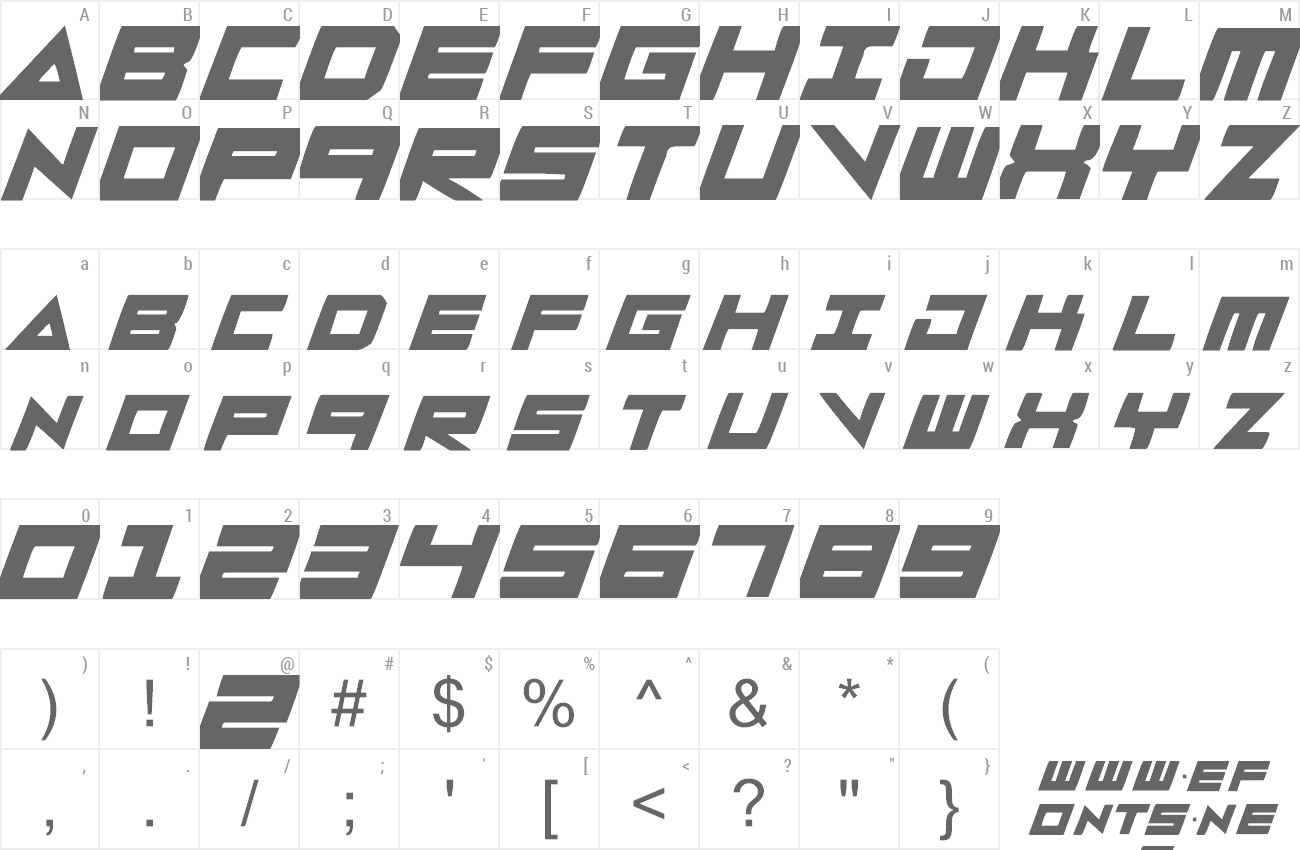
| Font name: | 5 Star League |
| Author: | Luke Sanders |
| Note by Luke Sanders | |
This is a typeface used for a project, which was aimed at creating a snooker tournament. It was based upon the logo design for the project. Check out Luke Sanders' website @ http://lukesandersdesign.webs.com/ |